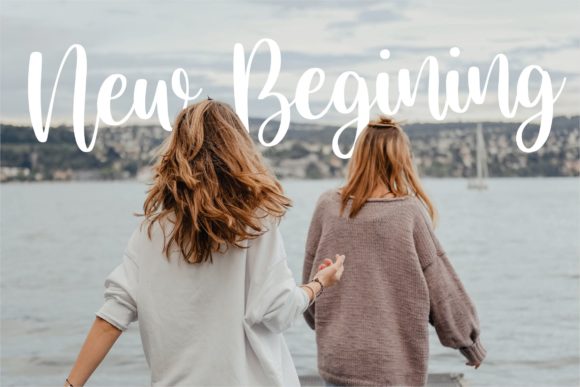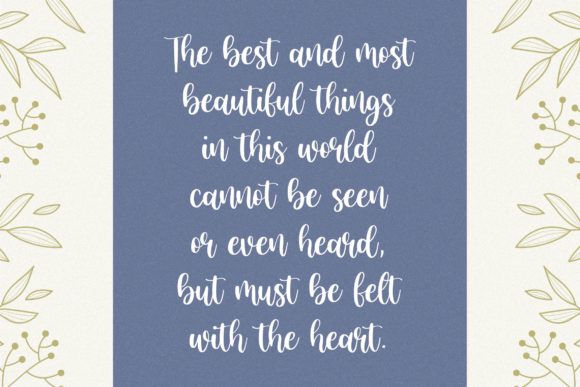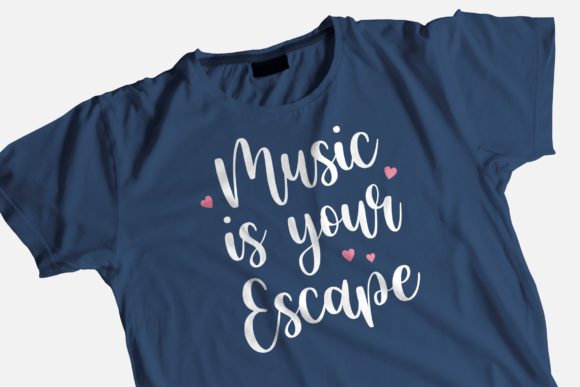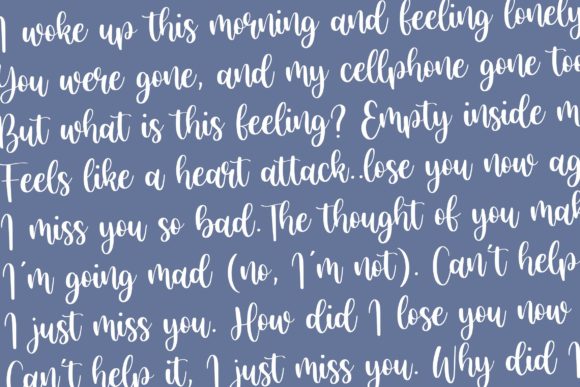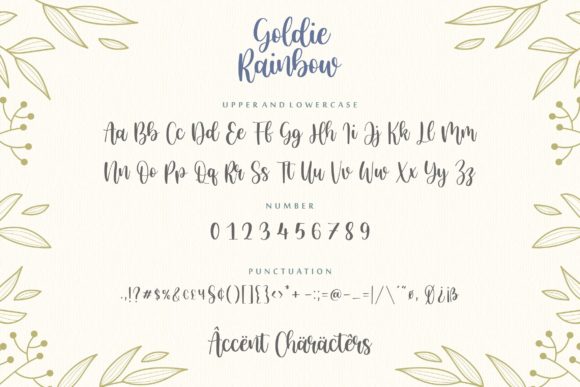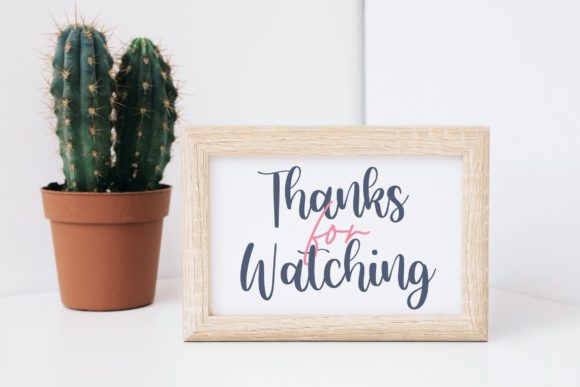
Introducing Goldie Rainbow Font: The Perfect Addition to Your Design Arsenal
Are you a designer or crafter looking for a unique and versatile font to elevate your creative projects? Look no further than Goldie Rainbow Font, a stunning handwritten font that is sure to capture your heart. Created with the help of a beautiful brush pen, Goldie Rainbow is a flowing and lovely font that can add a touch of elegance and sophistication to any design.
The Story Behind Goldie Rainbow Font
Goldie Rainbow Font is a carefully crafted font that is designed to bring a touch of whimsy and romance to your designs. With its incredibly versatile style, this font is perfect for a wide range of creative projects, from wedding invitations and stationary art to social media posts and more. Whether you’re a professional designer or a crafty DIY enthusiast, Goldie Rainbow Font is sure to become a favorite in your design arsenal.
What Makes Goldie Rainbow Font So Special?
So, what sets Goldie Rainbow Font apart from other fonts on the market? Here are just a few reasons why this font is a must-have for designers and crafters:
- Unique and Handwritten Style: Goldie Rainbow Font is a truly one-of-a-kind font that is handwritten with love and care. Its unique style is sure to add a touch of personality and charm to any design.
- Versatile and Flexible: Whether you’re designing a wedding invitation or a social media post, Goldie Rainbow Font is versatile enough to adapt to any style or theme.
- Beautiful Brush Pen Texture: The font’s beautiful brush pen texture gives it a organic and natural feel that is perfect for creating stunning designs.
Using Goldie Rainbow Font in Your Designs
Goldie Rainbow Font is incredibly easy to use and can be incorporated into a wide range of design projects. Here are just a few ideas to get you started:
- Wedding Invitations: Create beautiful and elegant wedding invitations that will set the tone for the big day.
- Stationary Art: Use Goldie Rainbow Font to create stunning stationary art, including greeting cards, thank you cards, and more.
- Social Media Posts: Add a touch of personality and style to your social media posts with Goldie Rainbow Font.
- Branding and Packaging: Use Goldie Rainbow Font to create custom branding and packaging that will help your business stand out.
Tips and Tricks for Getting the Most Out of Goldie Rainbow Font
Here are a few tips and tricks for getting the most out of Goldie Rainbow Font:
- Experiment with Different Colors: Goldie Rainbow Font looks stunning in a variety of colors, so don’t be afraid to experiment and find the perfect hue for your design.
- Mix and Match with Other Fonts: Goldie Rainbow Font pairs beautifully with other fonts, so try mixing and matching it with different fonts to create a unique and interesting design.
- Use it for Headings and Titles: Goldie Rainbow Font is perfect for headings and titles, so use it to add a touch of elegance and sophistication to your designs.
Goldie Rainbow Font is a truly special font that is sure to become a favorite in your design arsenal. With its unique and handwritten style, versatile and flexible design, and beautiful brush pen texture, this font is perfect for a wide range of creative projects. Whether you’re a professional designer or a crafty DIY enthusiast, Goldie Rainbow Font is a must-have font that will help you create stunning designs that will capture your audience’s attention.